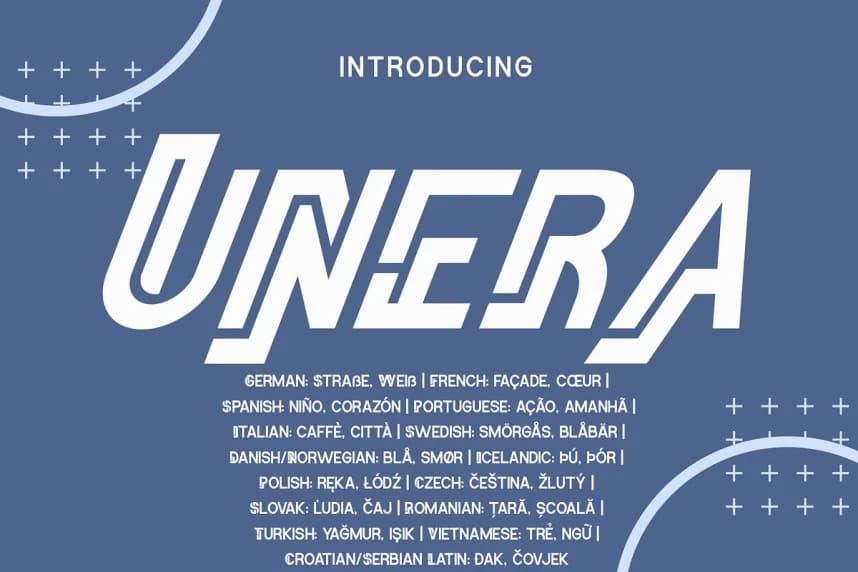
Unera Font
Unera Font is a bold, modern sans-serif typeface with a strong italic structure and sharp, confident lines. Its dynamic design conveys speed and energy, making it perfect for projects that demand impact and personality. Carefully refined details create a solid yet flexible visual presence.